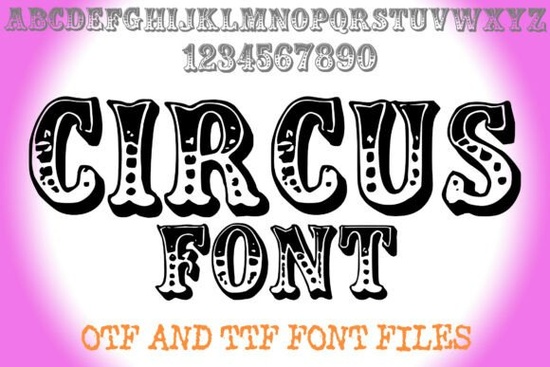
Circus Font is a standout choice for anyone looking to add a touch of whimsy and nostalgia to their design projects. This vintage-inspired decorative typeface brings the energy of classic carnival and big top posters into modern creative work. Whether you're designing event invitations, signage, or logos, Circus Font offers a unique blend of ornate details and playful proportions that make it ideal for circus-themed designs and retro branding.
What makes Circus Font particularly appealing is its ability to capture the theatrical essence of a bygone era while remaining versatile enough for a wide range of applications. The font’s quirky character set and bold strokes make it perfect for eye-catching headlines, promotional materials, and creative projects that need a little extra flair. Its distinctive style can help your work stand out in a sea of more conventional typefaces.
Why Choose Circus Font for Your Projects?
If you’re working on a project with a fun or nostalgic theme, Circus Font can be a valuable addition to your design toolkit. It works well for everything from party invitations and custom t-shirts to digital graphics and social media posts. The font’s decorative elements add a sense of movement and excitement, making it a great fit for anything that needs to grab attention.
Designers who enjoy experimenting with typography will find that Circus Font offers a lot of creative potential. Its ornate details and exaggerated shapes allow for expressive use in both digital and print formats. Whether you're creating a logo for a local carnival or designing a poster for a vintage-themed event, this font can help bring your vision to life.
How to Use Circus Font Effectively
One of the best ways to use Circus Font is to pair it with simpler typefaces for balance. For example, using it as a headline with a clean sans-serif font for body text can create a visually appealing contrast. This approach helps maintain readability while still allowing the decorative nature of the font to shine through.
Another tip is to experiment with different sizes and weights. Larger text can emphasize the font’s dramatic qualities, while smaller sizes may be better suited for subtle accents or decorative elements. Testing how the font looks in various contexts can help you determine the best way to incorporate it into your work.
Before finalizing your project, make sure to test the font in different sizes and formats. This will help ensure that it looks good on both digital and printed materials. Also, consider the context in which it will be used some designs may benefit from a more subdued application of the font, while others can take full advantage of its bold and expressive nature.
Whether you're a designer, crafter, or small business owner, Circus Font offers a unique way to add personality and style to your work. With its vintage charm and theatrical flair, it’s a great choice for anyone looking to make a statement through typography.
Take a moment to explore how Circus Font can enhance your creative projects. Try it out in different designs, and see how it brings a new level of excitement and character to your work.